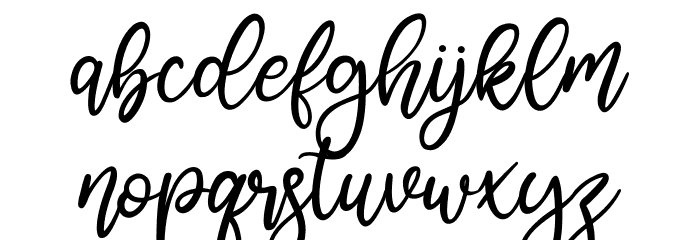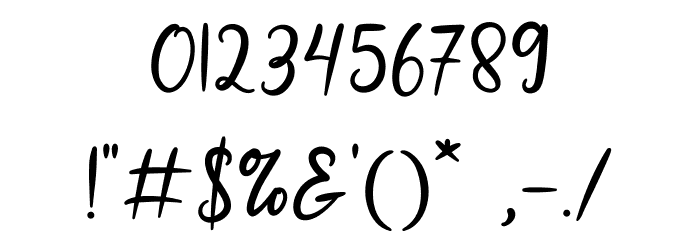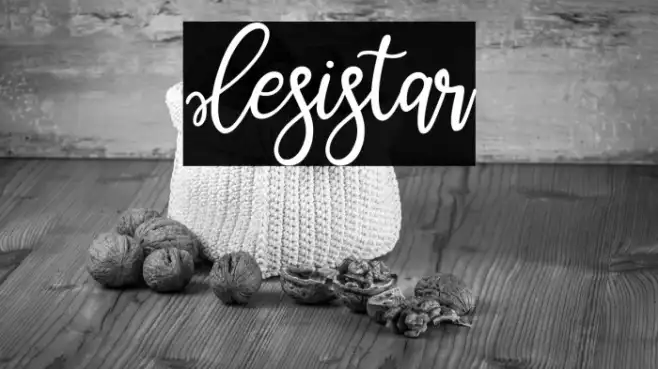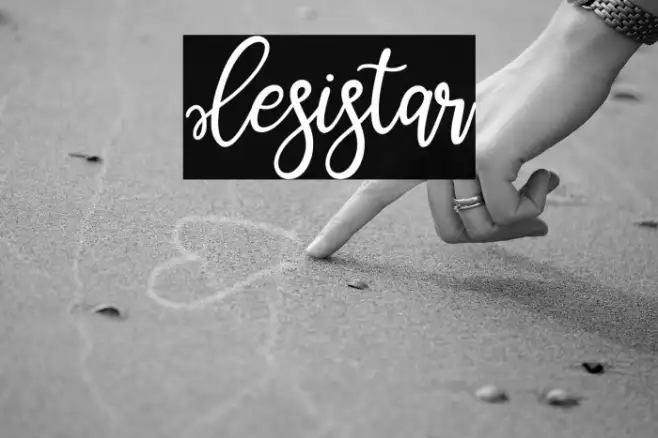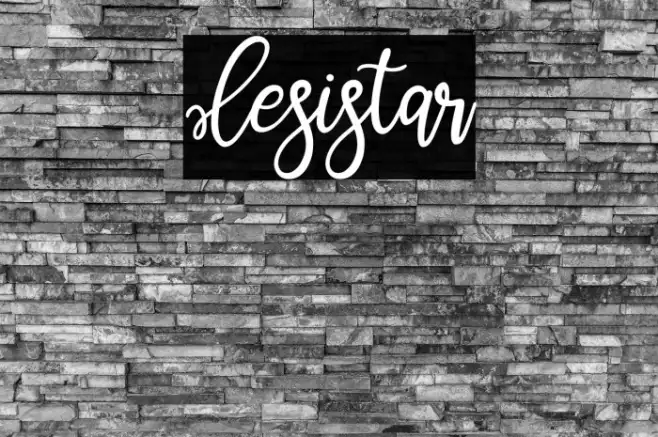
Lesistar Font
This font features a lively and flowing script style, characterized by its elegant, cursive letterforms. Each character is crafted with smooth, continuous strokes that create a sense of movement and grace. The uppercase letters are bold and prominent, while the lowercase letters maintain a consistent fluidity, enhancing readability. Numbers and special characters are designed to match the overall aesthetic, ensuring a cohesive look across all text. The font's playful yet sophisticated appearance makes it ideal for creative and decorative applications.
A lively, flowing script font with elegant cursive letterforms.
- Proposed Projects: Ideal for wedding invitations, greeting cards, branding, and social media graphics.
- Use Case: Logos, Headlines, Invitations